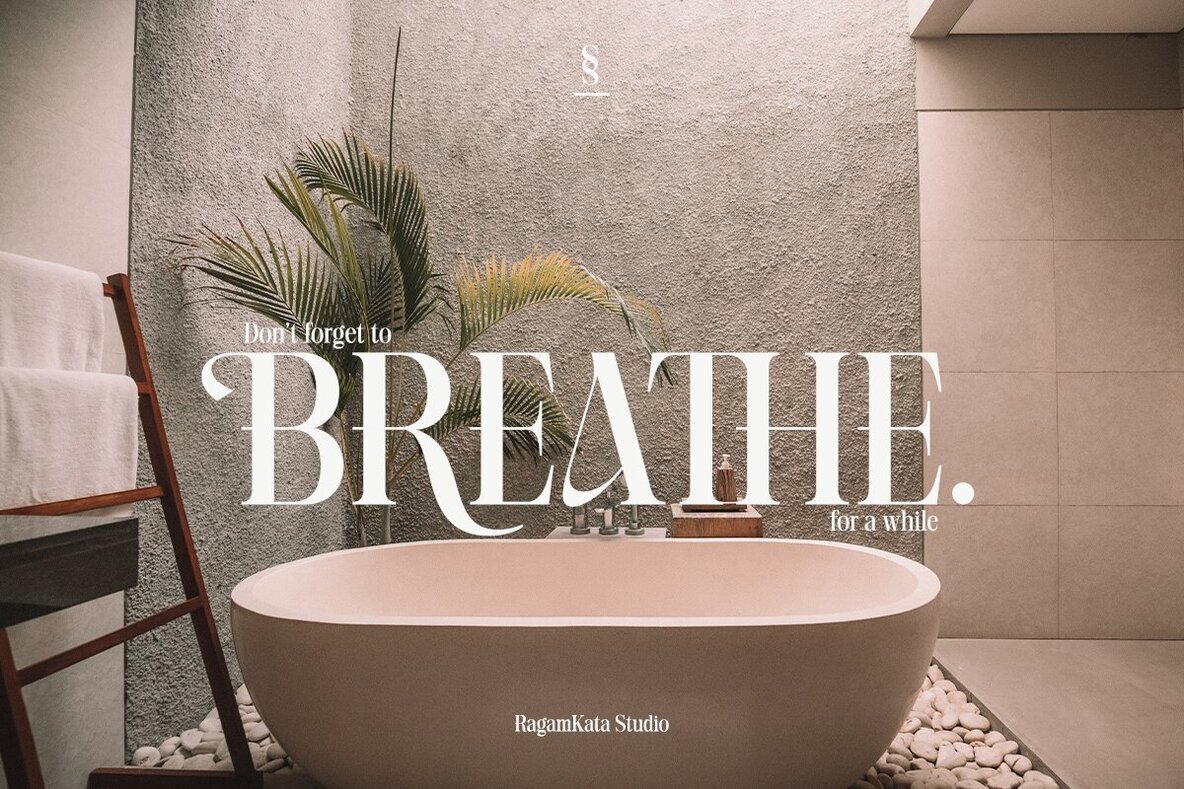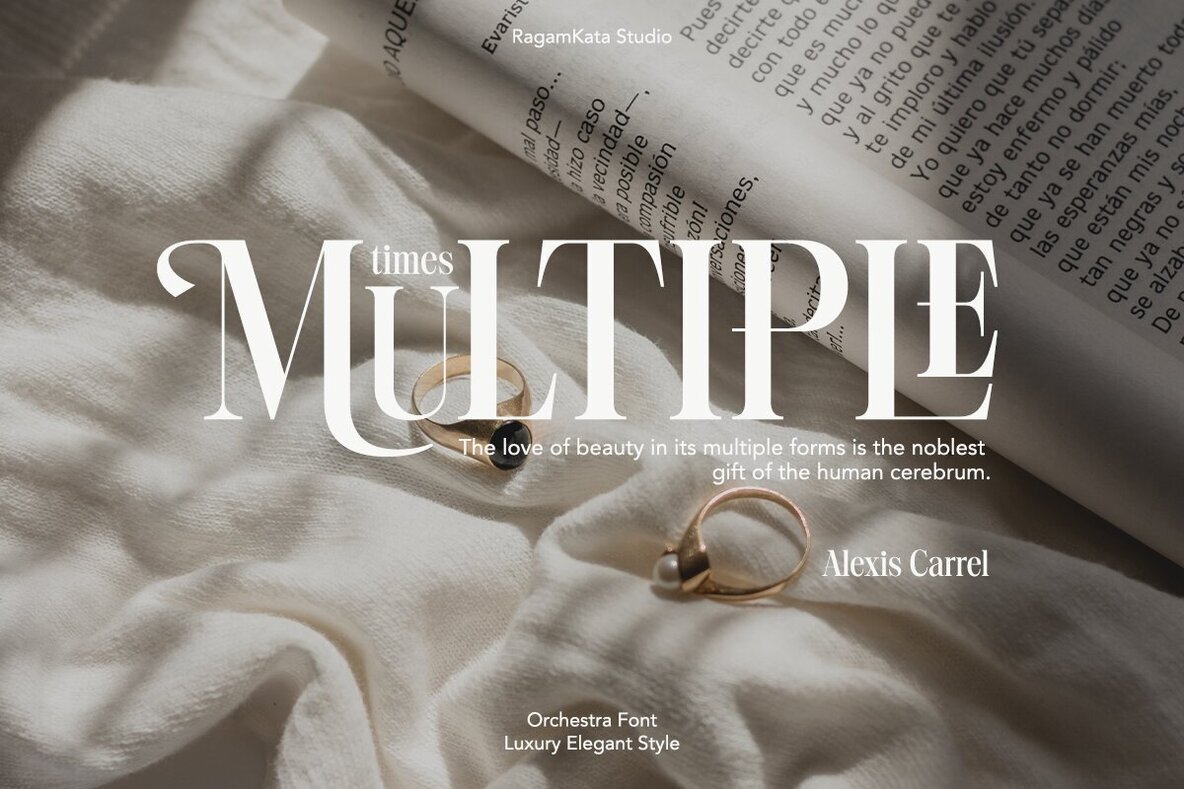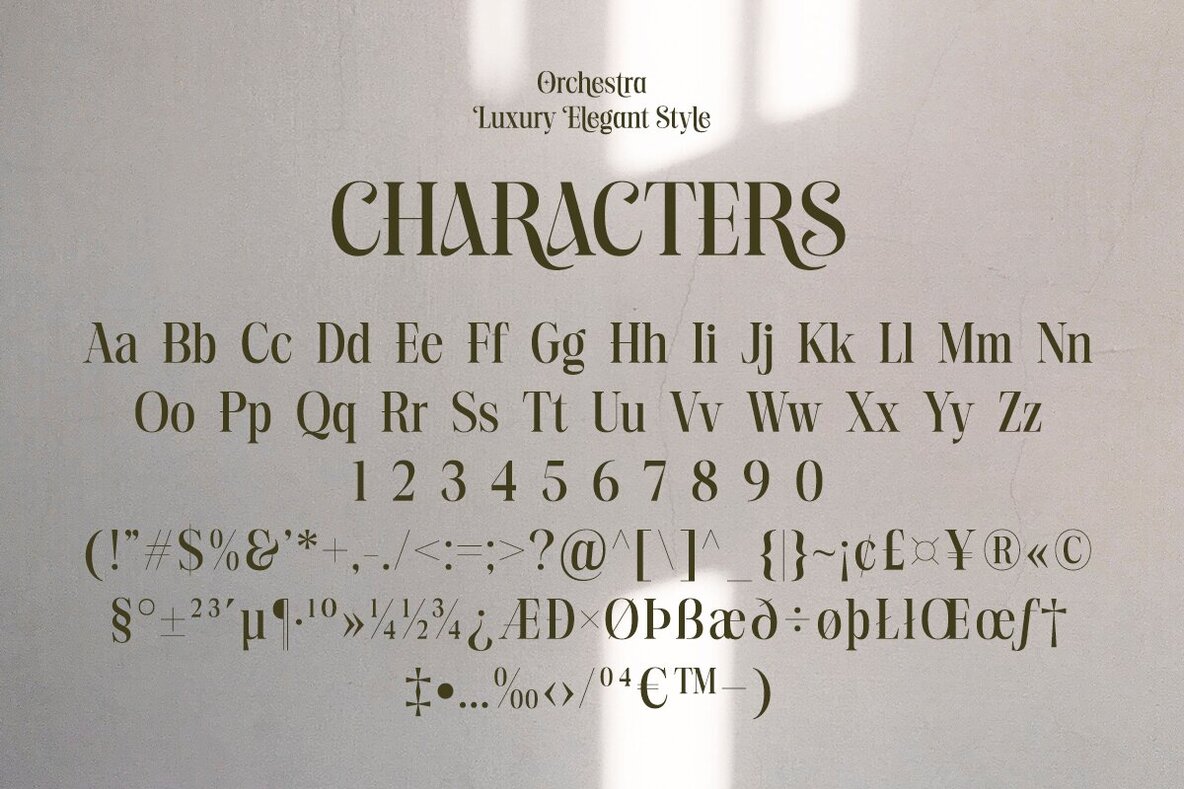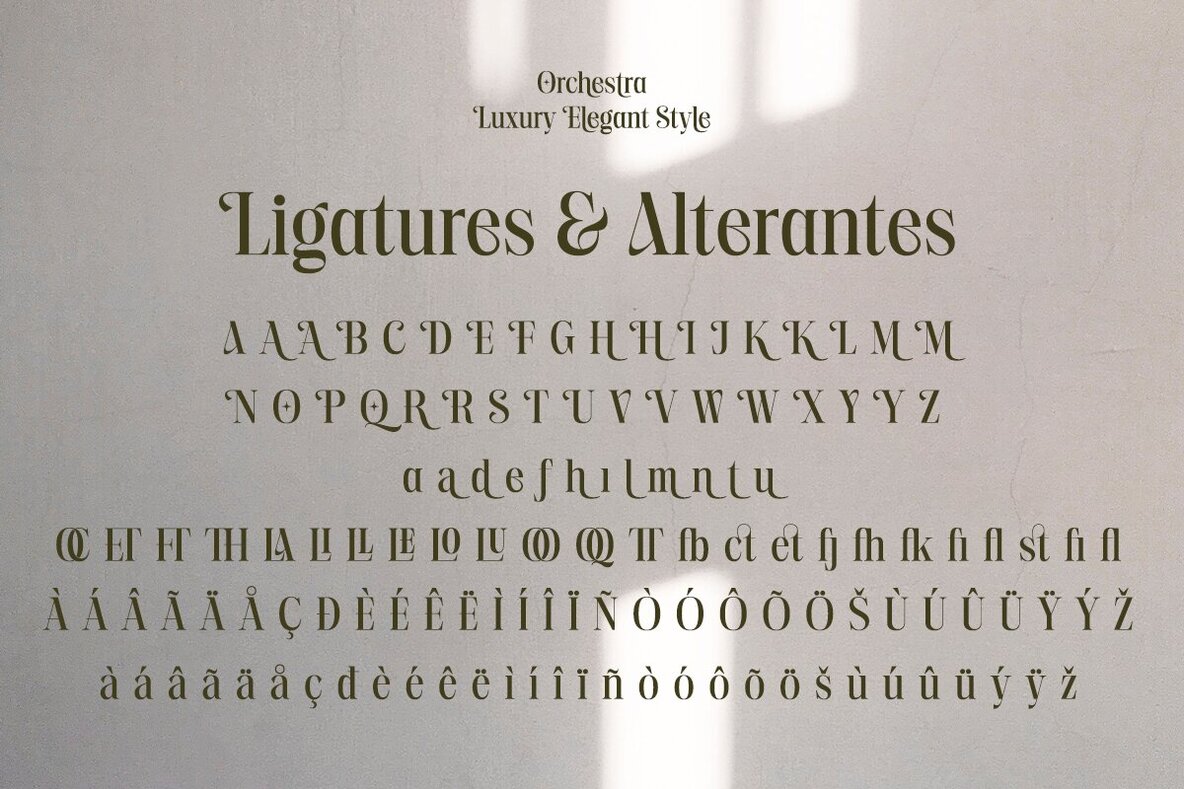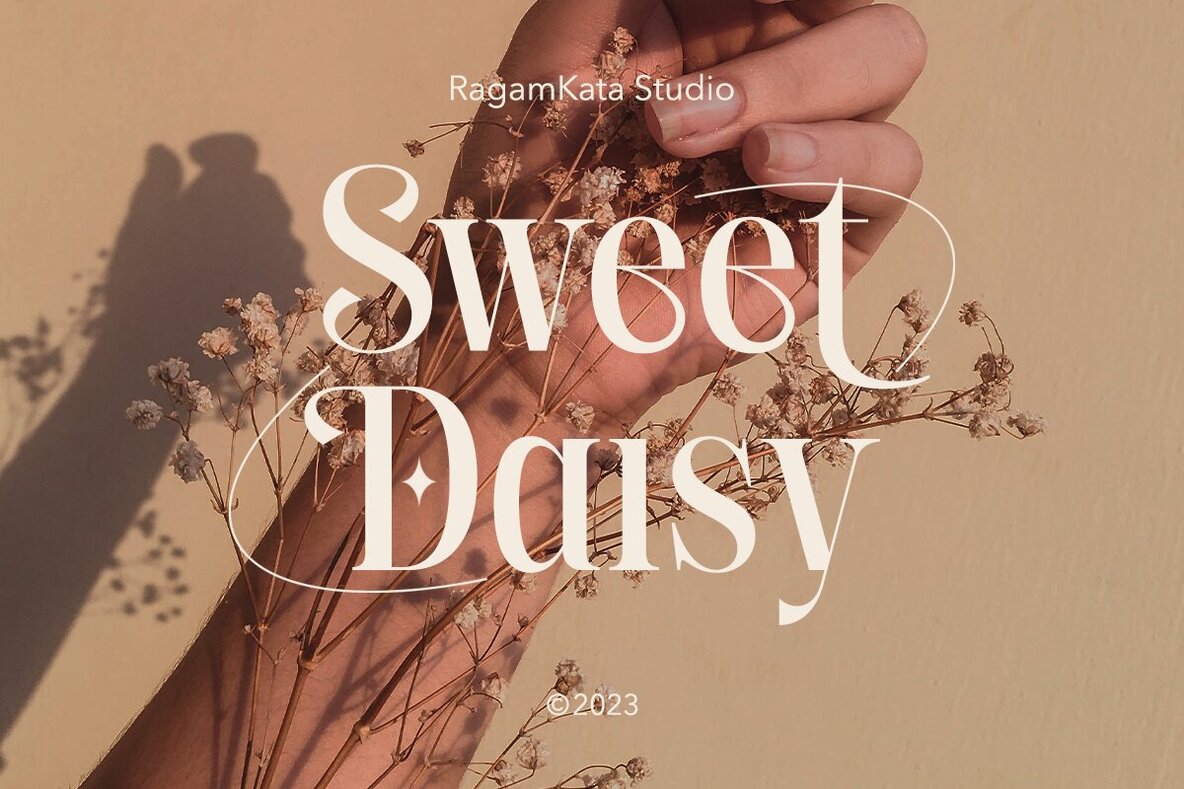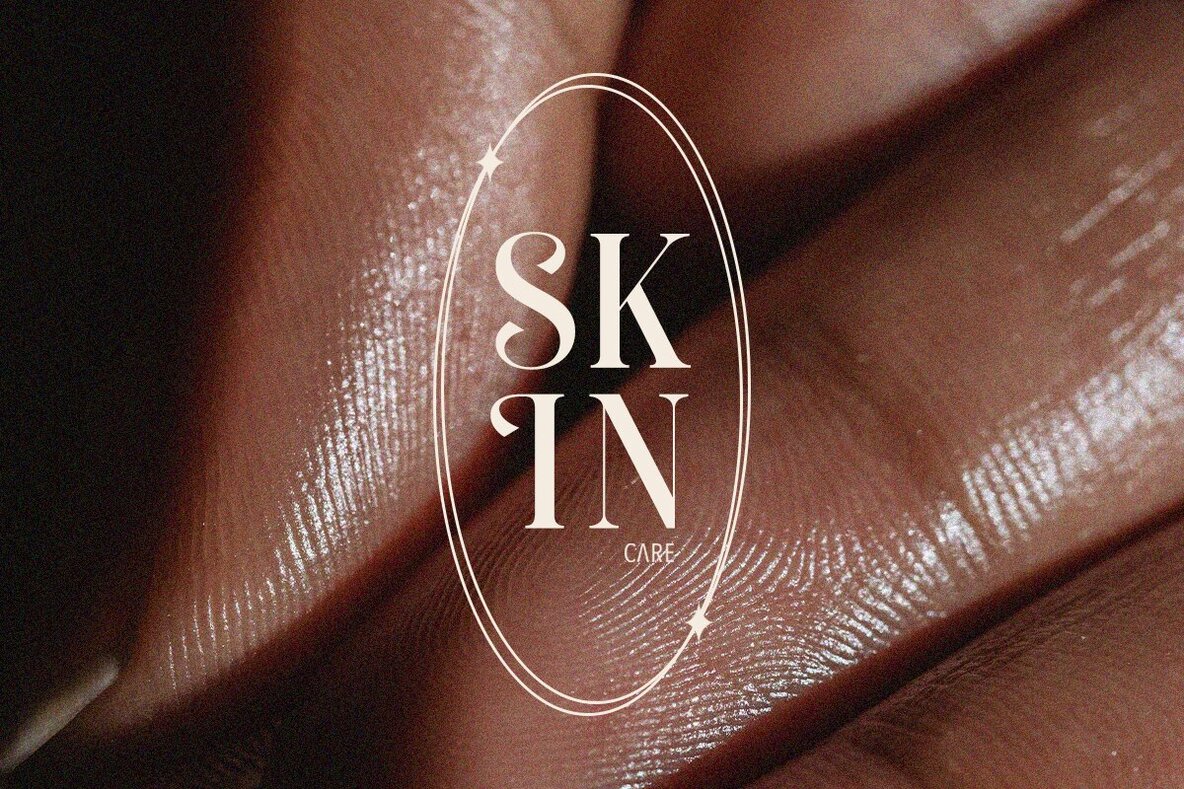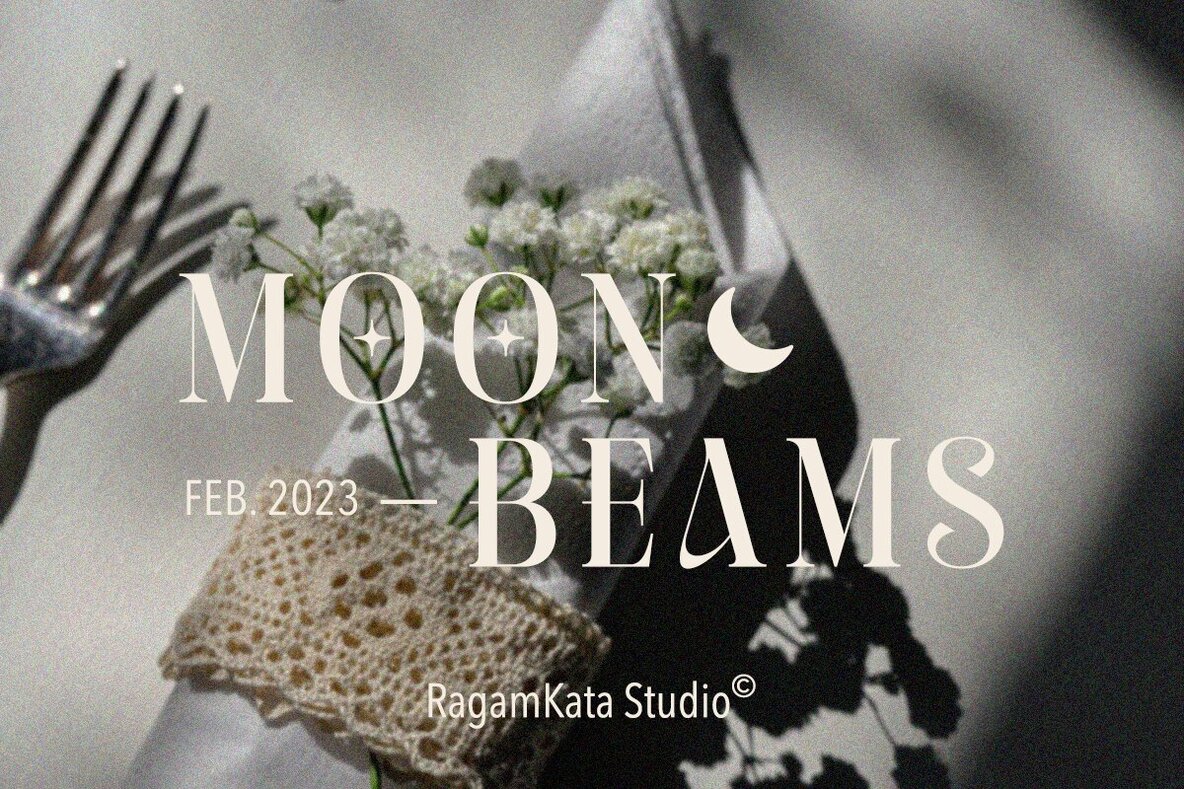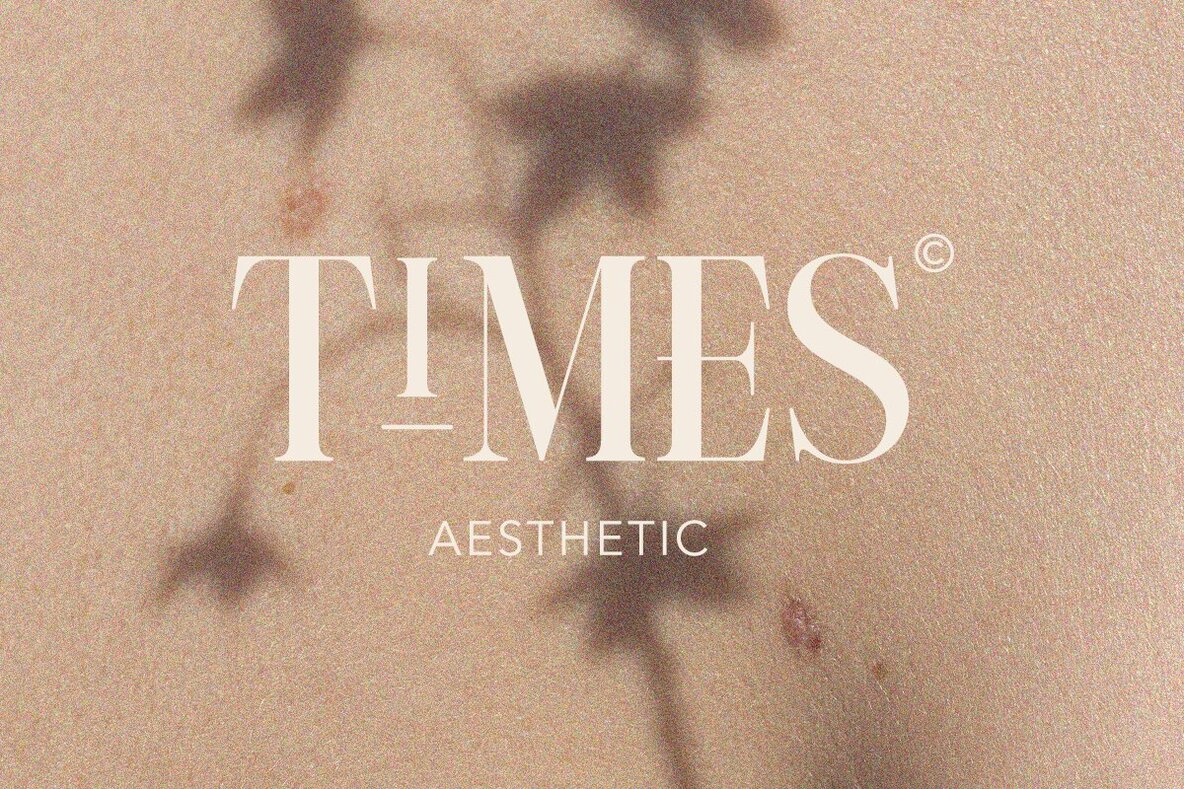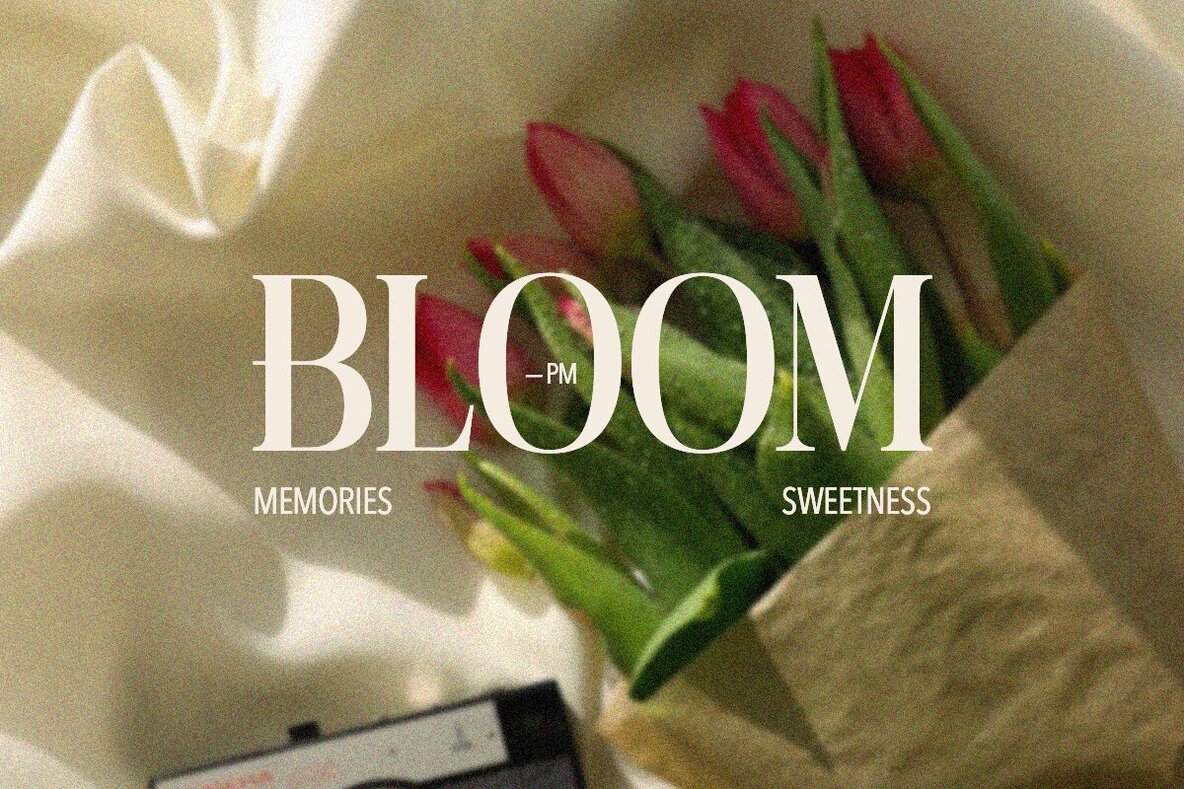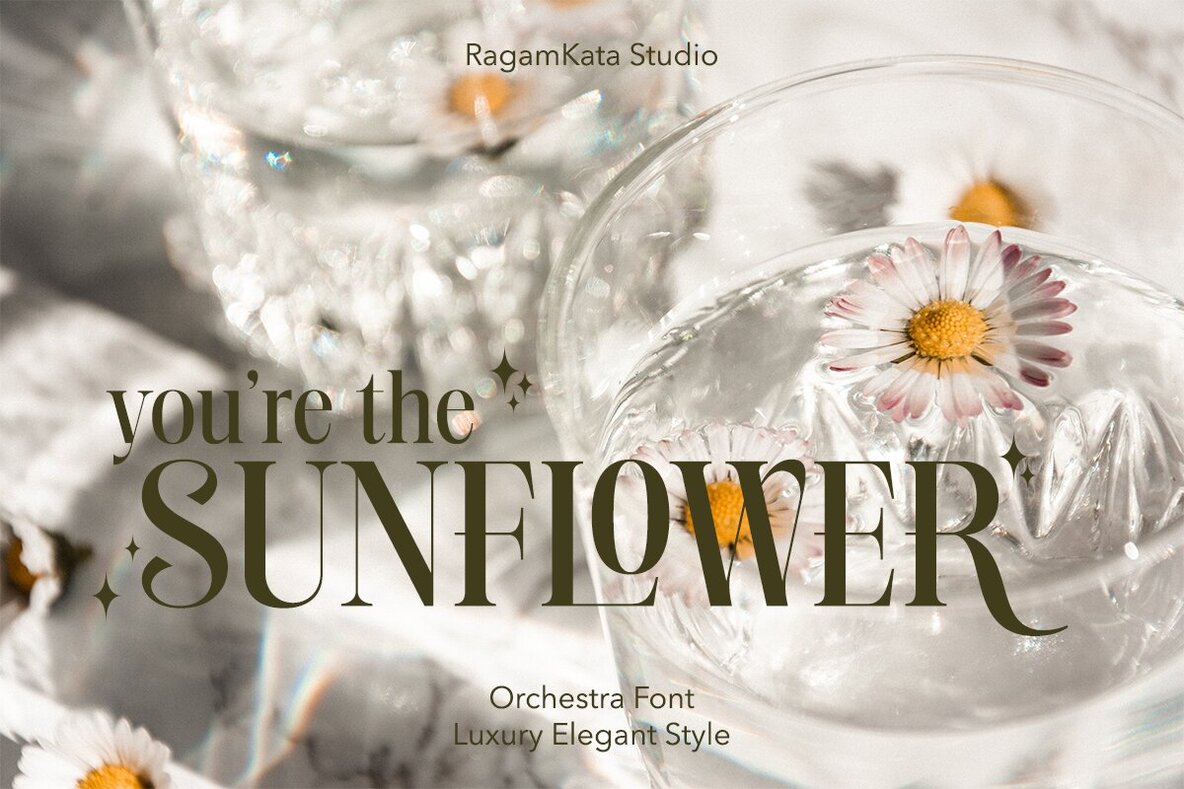
Orchestra Font
Orchestra is as refined as its name, presenting an authentic serif font that beautifully balances elegance and modernity. Its unique design exudes a classic feel while aligning seamlessly with current design trends. Orchestra is perfectly suited for high-end design projects, ensuring your work is eye-catching and captivating. Whether you're designing invitations, posters, or product packaging, Orchestra adds an exclusive and luxurious touch to your designs. Elevate your creations with the elegant yet classic appearance of Orchestra.Orchestra: Elegant and Timeless Serif Font
Ideal Font for High-End Projects